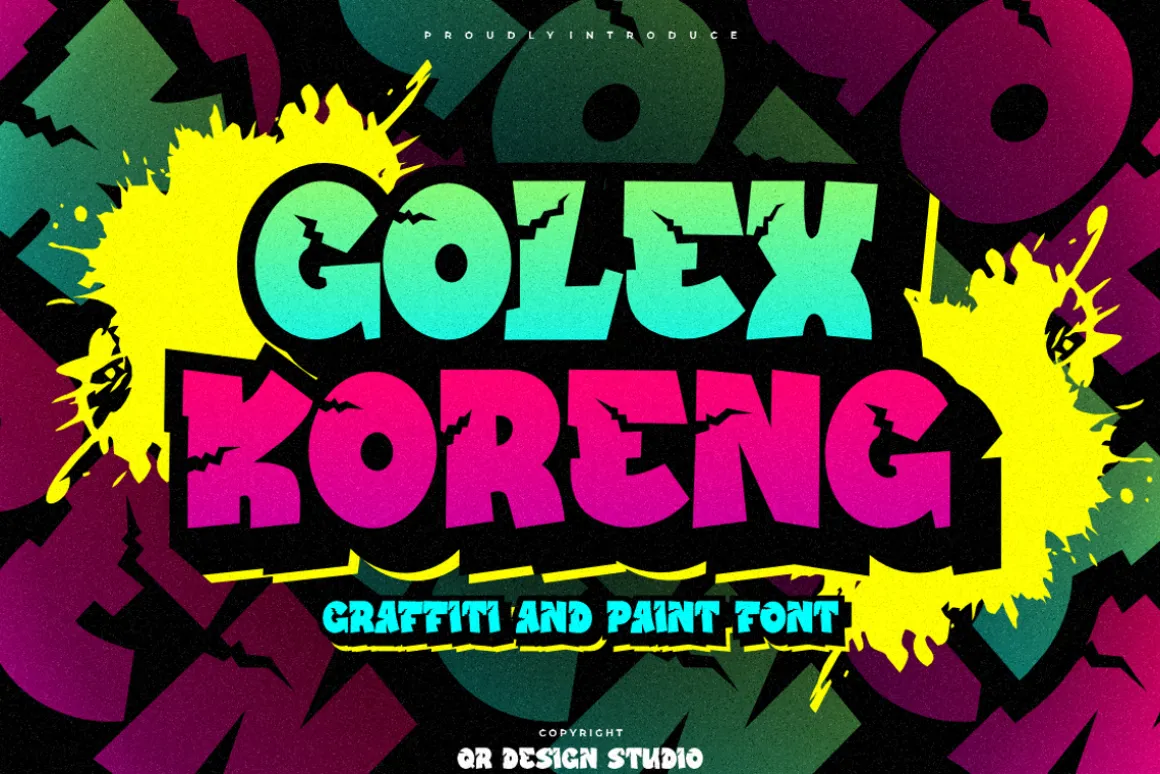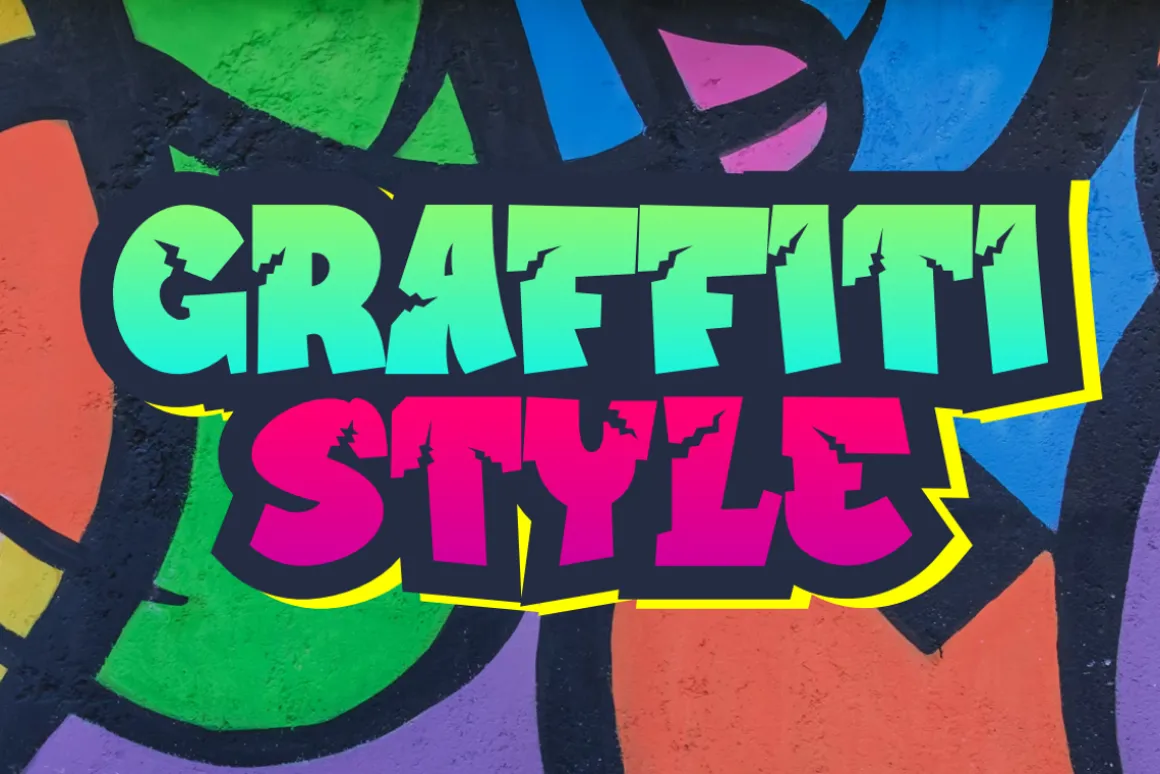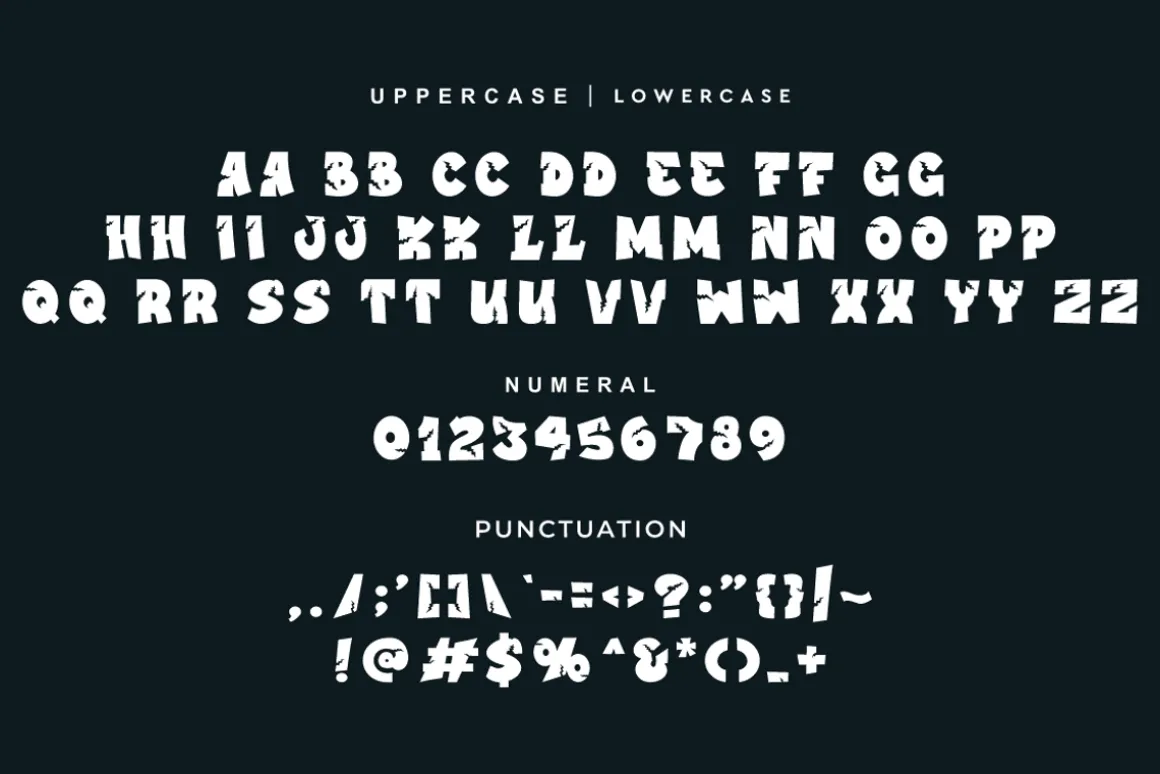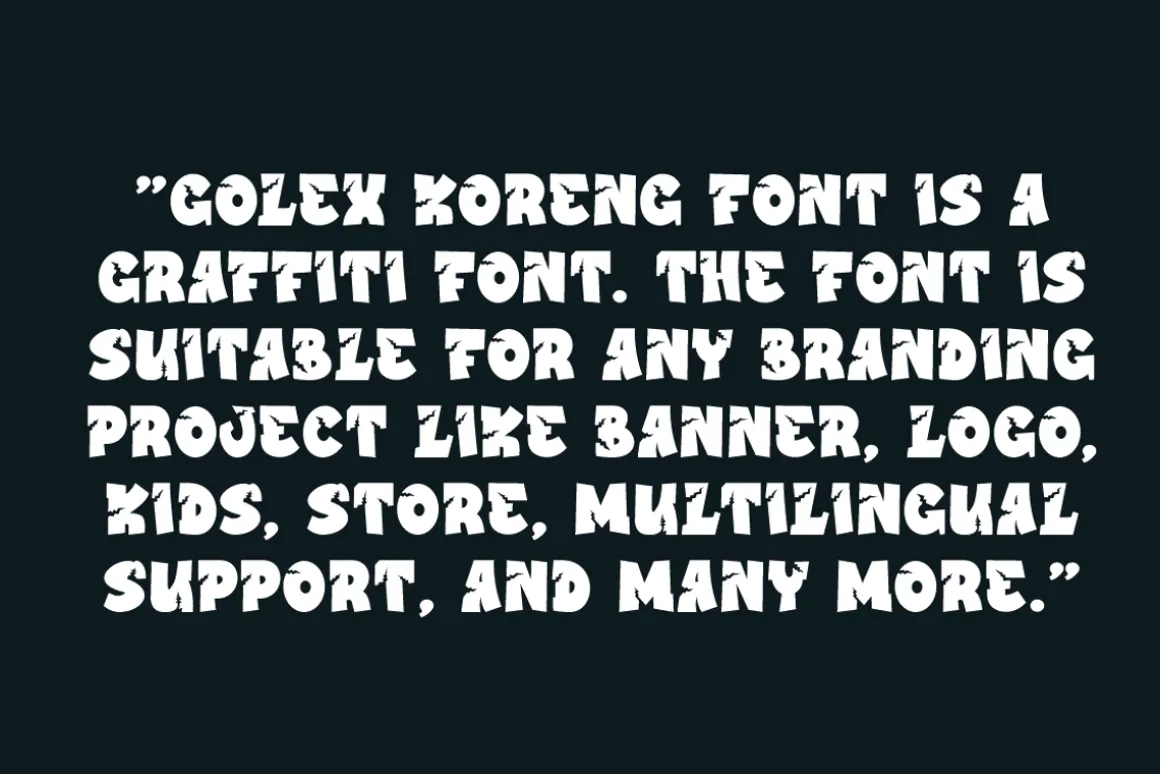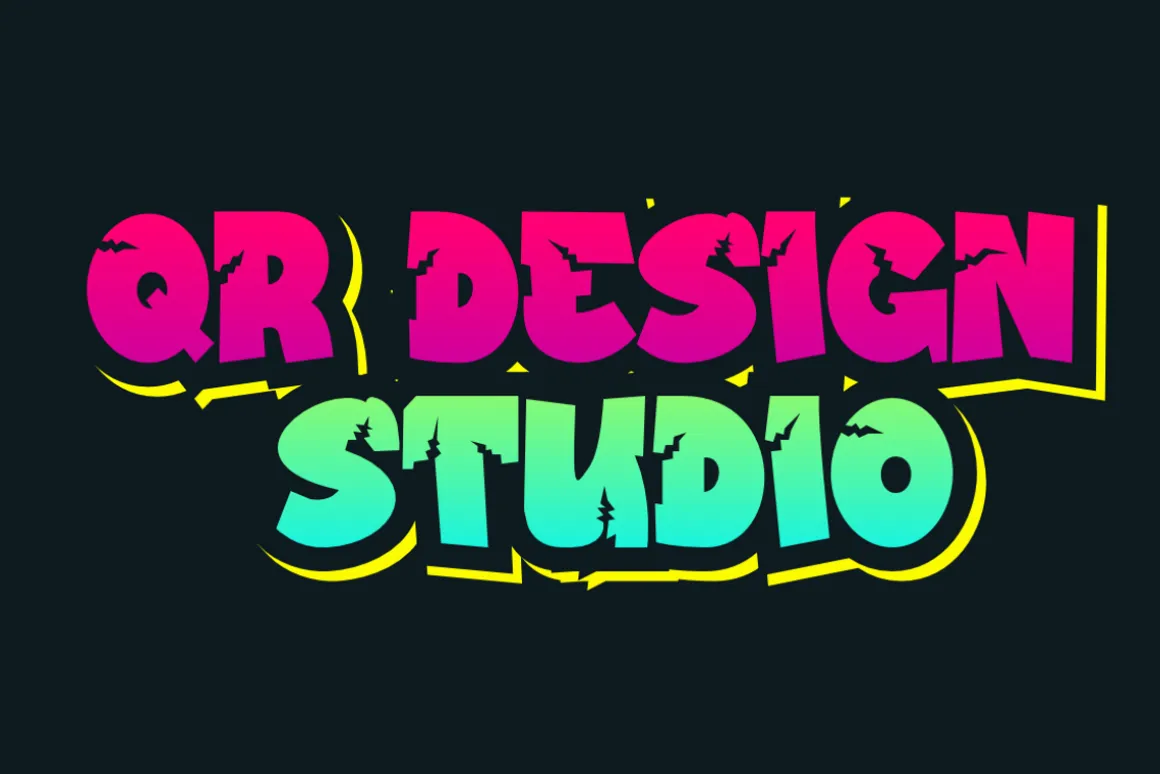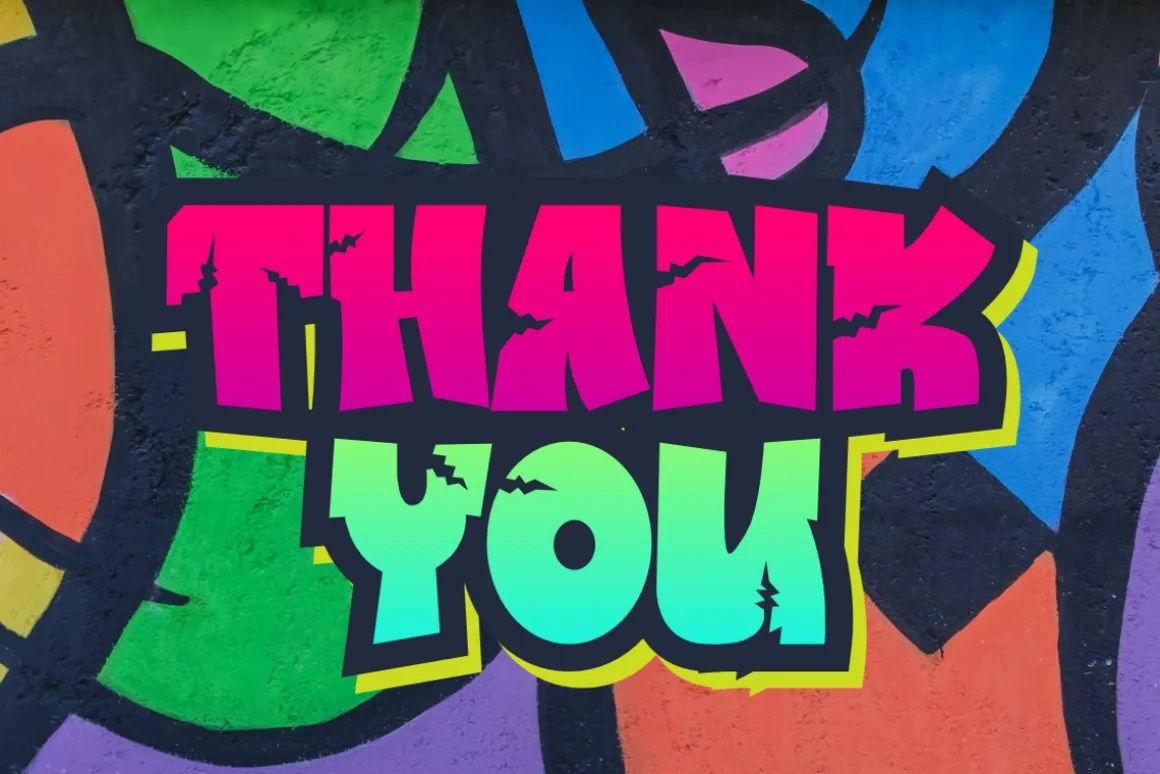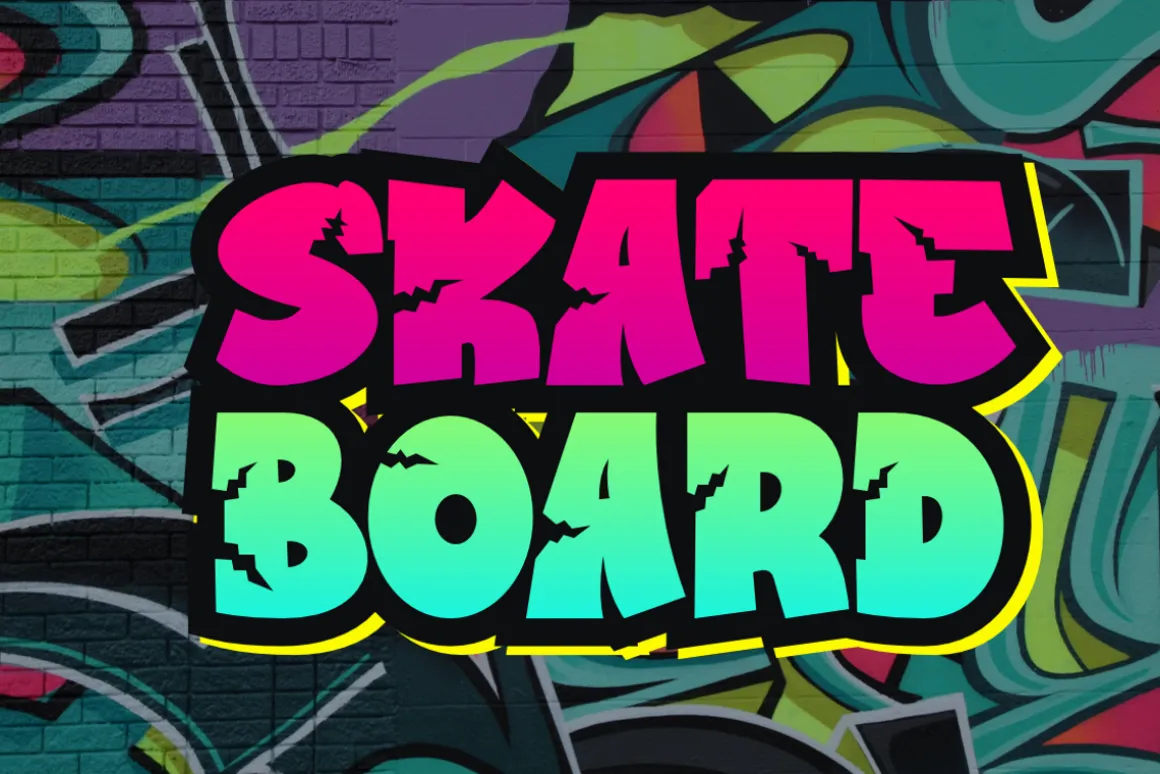
Golex Koreng Font is a graffiti and authentic display font.The font is suitable for any branding project like poster, logo, sport, and many more.Outstanding in a wide range of contexts.